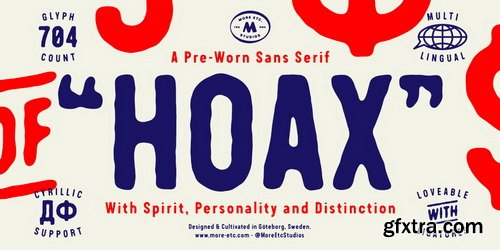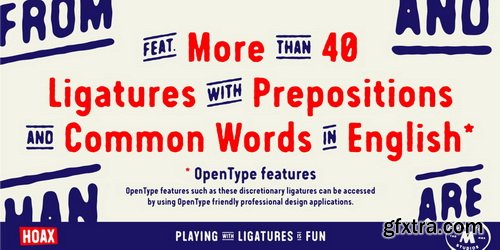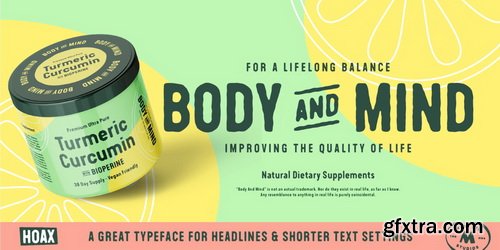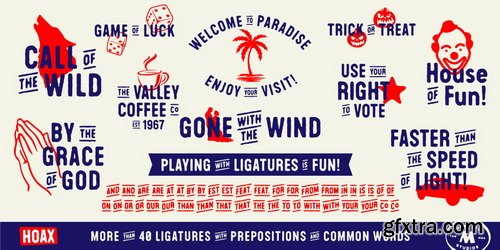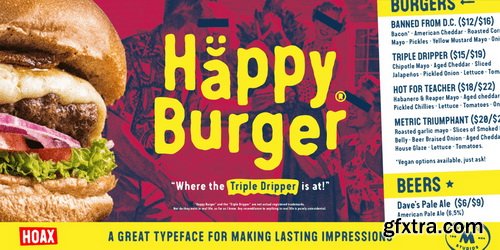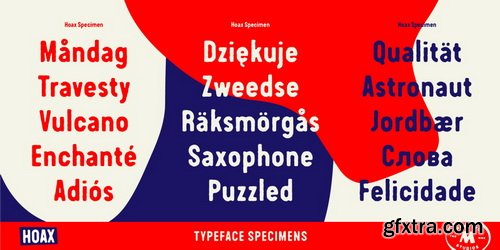
This bold and semi-condensed sans serif is inspired by old copy machines and vintage prints. It is lively and eye-catching, ideal for where and when you want to make a lasting impression.